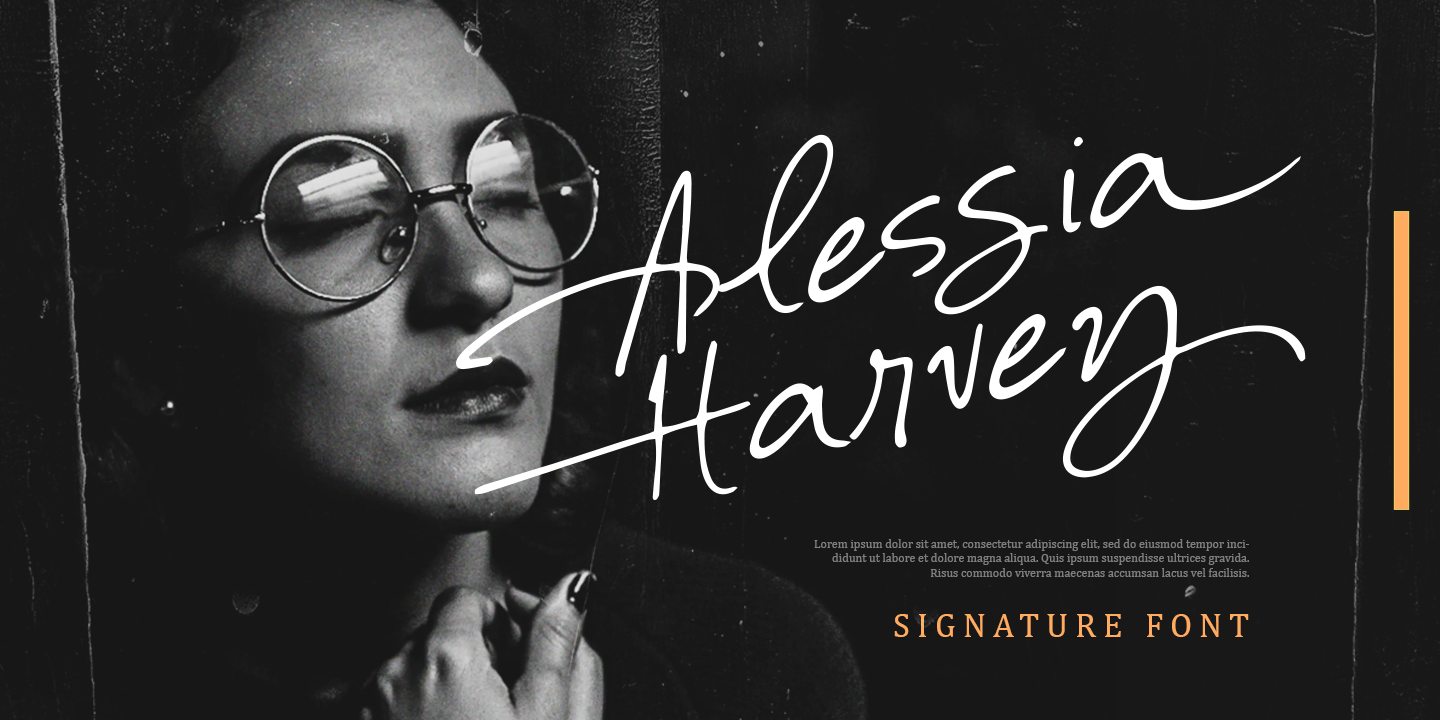
Alessia Harvey
Seeking a charming, sophisticated font with a touch of elegance? Look no further! You're likely searching for a font that exudes refinement and poise, perfect for projects where subtlety is key. A delicate handwritten script with beautiful, well-balanced characters is just what you need to elevate your design.
This font's flowing curves and gentle strokes evoke the feeling of handwritten notes from a bygone era, adding a touch of romance and whimsy to any project. Its versatility ensures it will match a wide range of designs, from luxury branding to editorial content. Whether you're creating a high-end magazine layout or crafting an invitation for a special occasion, this font's understated sophistication is sure to impress.
If you're looking for a font that conveys refinement, poise, and a touch of vintage charm, Alessia Harvey is the perfect choice. Its delicate yet legible script will add a level of sophistication to your design, making it ideal for projects where elegance and refinement are paramount.